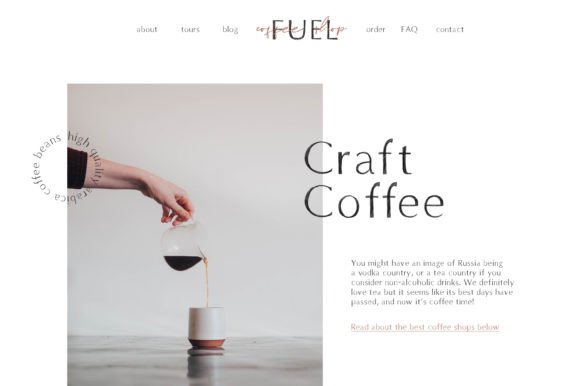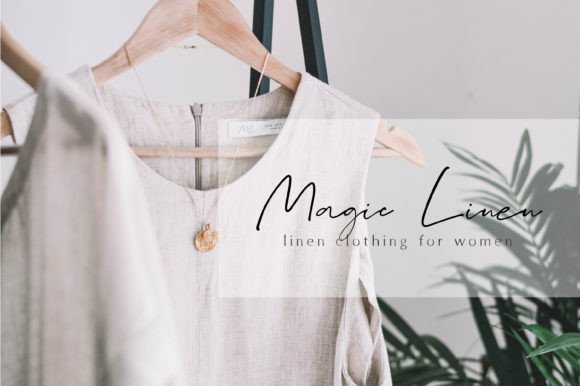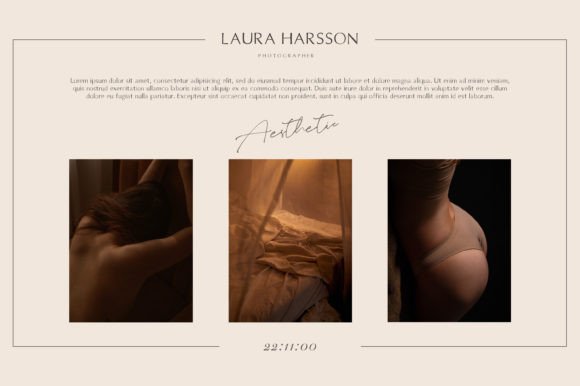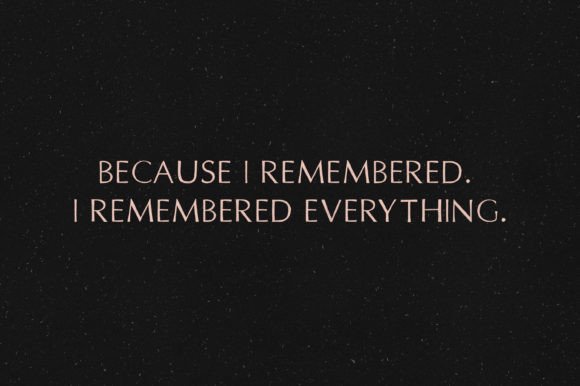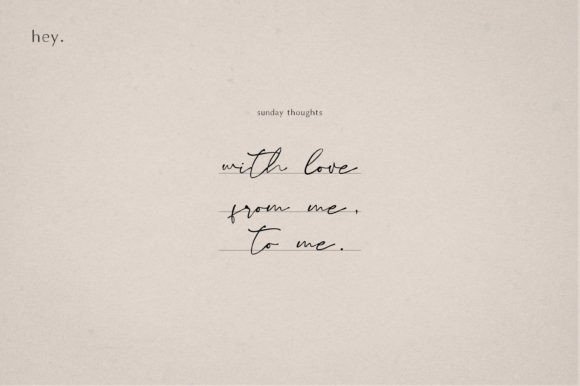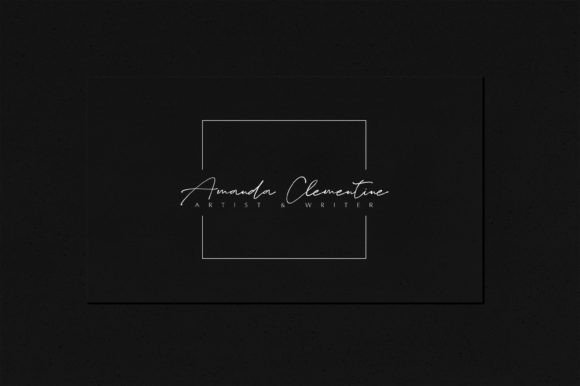
Introducing Fine Art Duo Font: Elevate Your Designs with Elegance
In the world of design, typography plays a crucial role in conveying the tone and aesthetic of a brand or project. For those seeking a touch of sophistication and elegance, the Fine Art Duo Font is an exceptional choice. This beautifully crafted font duo is hand-painted with meticulous attention to detail, making it perfect for a wide range of applications, from logos and branding to wedding cards, packaging design, and website design.
The Essence of Fine Art Duo Font
Fine Art Duo Font is not just a typeface; it’s an experience. Its hand-painted elegance brings a unique, personal touch to any design, setting it apart from more conventional fonts. The duo consists of two complementary fonts that can be used together to create a cohesive look or separately to add variety to your typography. Each letterform is a work of art, meticulously designed to convey a sense of luxury, sophistication, and refinement.
One of the standout features of the Fine Art Duo Font is its incredible versatility. Whether you’re working on a logo, a wedding invitation, a brand’s packaging, or a website’s header, this font duo fits seamlessly into any design. Its elegant and sophisticated appearance makes it an ideal choice for:
- Logo Design: Create a lasting impression with a custom logo that exudes elegance and professionalism.
- Branding: Consistency is key in branding. Use Fine Art Duo Font across all your brand materials to create a unified and luxurious feel.
- Wedding Cards and Stationery: Add a touch of romance and sophistication to your wedding designs or any stationery project.
- Packaging Design: Elevate your product packaging with a font that communicates luxury and quality.
- Website Design: Make your website stand out with elegant headings and content that capture your visitors’ attention.
Why Choose Fine Art Duo Font?
With so many fonts available, what makes Fine Art Duo Font stand out? Here are a few reasons why designers and crafters are gravitating towards this beautiful typeface:
- Unique Aesthetic: The hand-painted nature of the font gives it a unique aesthetic that’s hard to replicate with standard fonts.
- Elegance and Sophistication: It adds a level of elegance and sophistication to any design, making it perfect for luxury brands and high-end projects.
- Time-Saving: Having two complementary fonts in one duo saves time and ensures consistency across your design projects.
- Easy to Use: Despite its intricate design, Fine Art Duo Font is easy to use, even for those with basic knowledge of typography and design.
Tips for Using Fine Art Duo Font
To get the most out of Fine Art Duo Font, consider the following tips:
- Mix and Match: Experiment with different weights and styles within the duo to create visual hierarchy and interest.
- Pair with Simplicity: Balance the elegance of the font with simpler design elements to avoid overwhelming the viewer.
- Consider Context: Think about where your design will be seen. For instance, a website might require a bolder version, while a wedding card could suit a lighter touch.
Fine Art Duo Font is more than just a font; it’s a design statement. Its elegant, hand-painted aesthetic brings a touch of luxury and sophistication to any project. Whether you’re a professional designer or a DIY crafter, this versatile font duo is sure to elevate your designs and leave a lasting impression on your audience. With its wide range of applications and easy-to-use nature, Fine Art Duo Font is an invaluable addition to any creative toolkit.